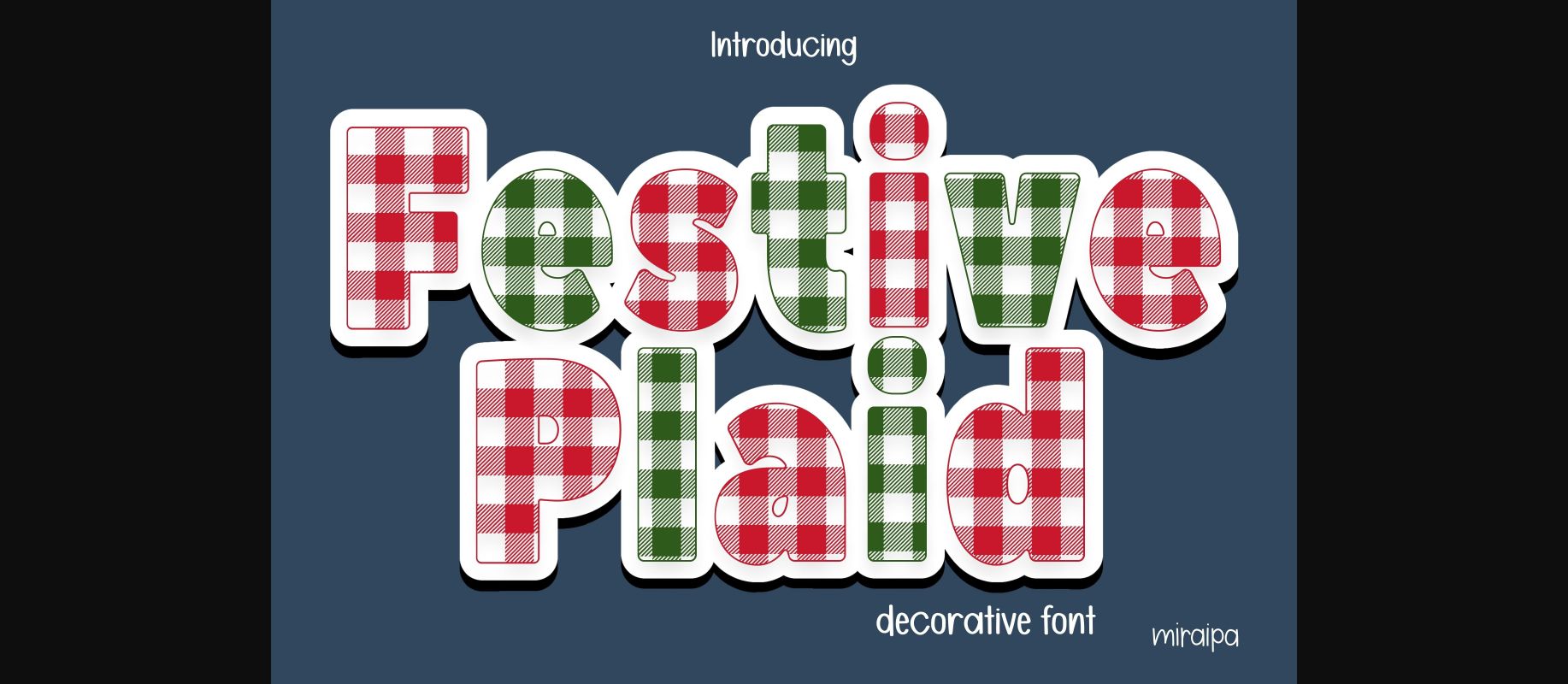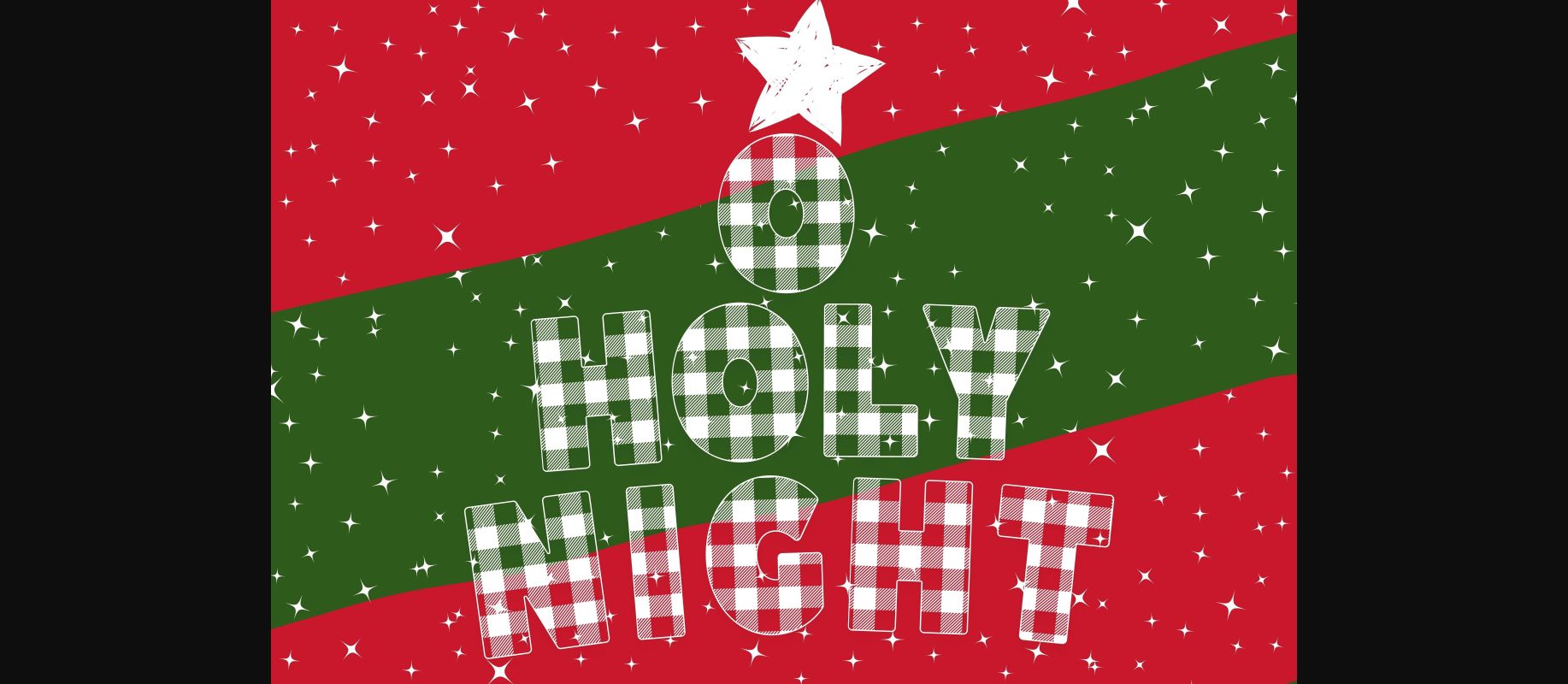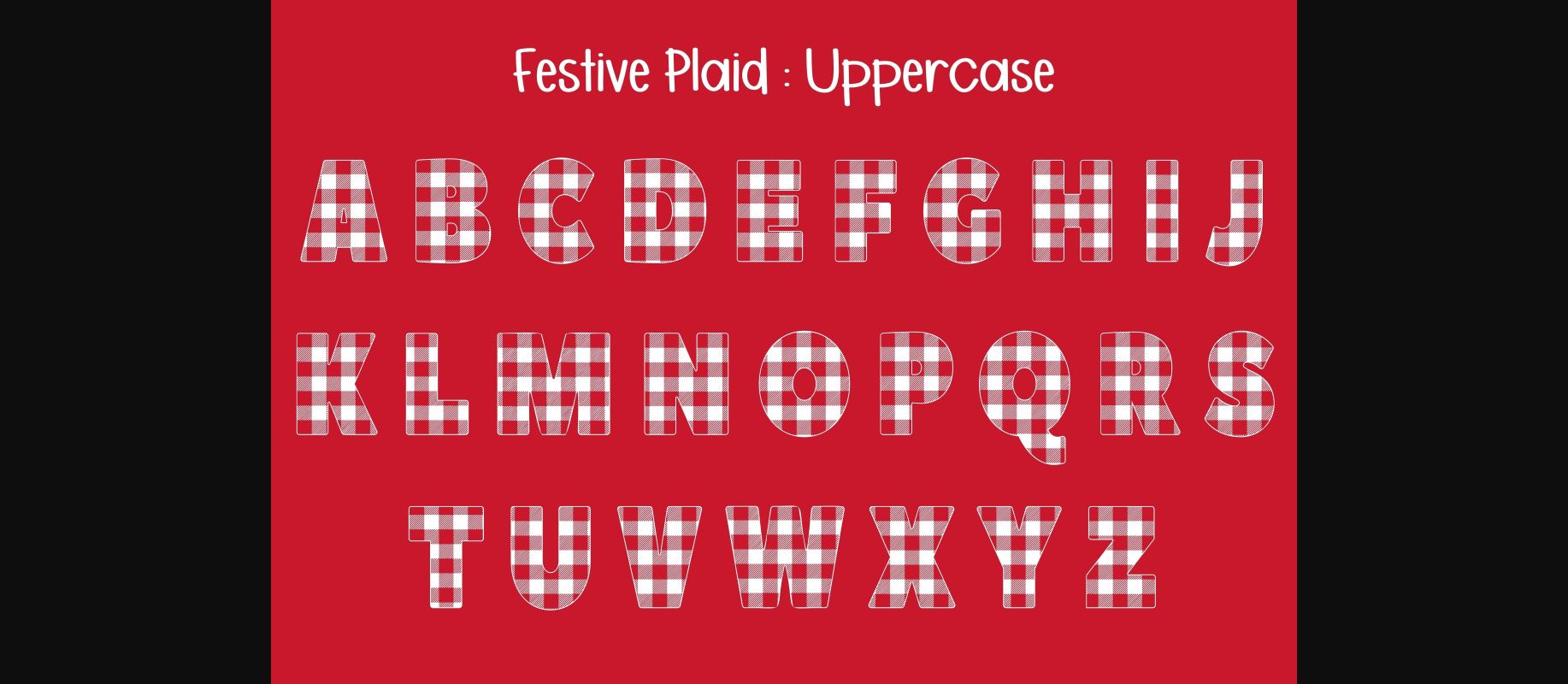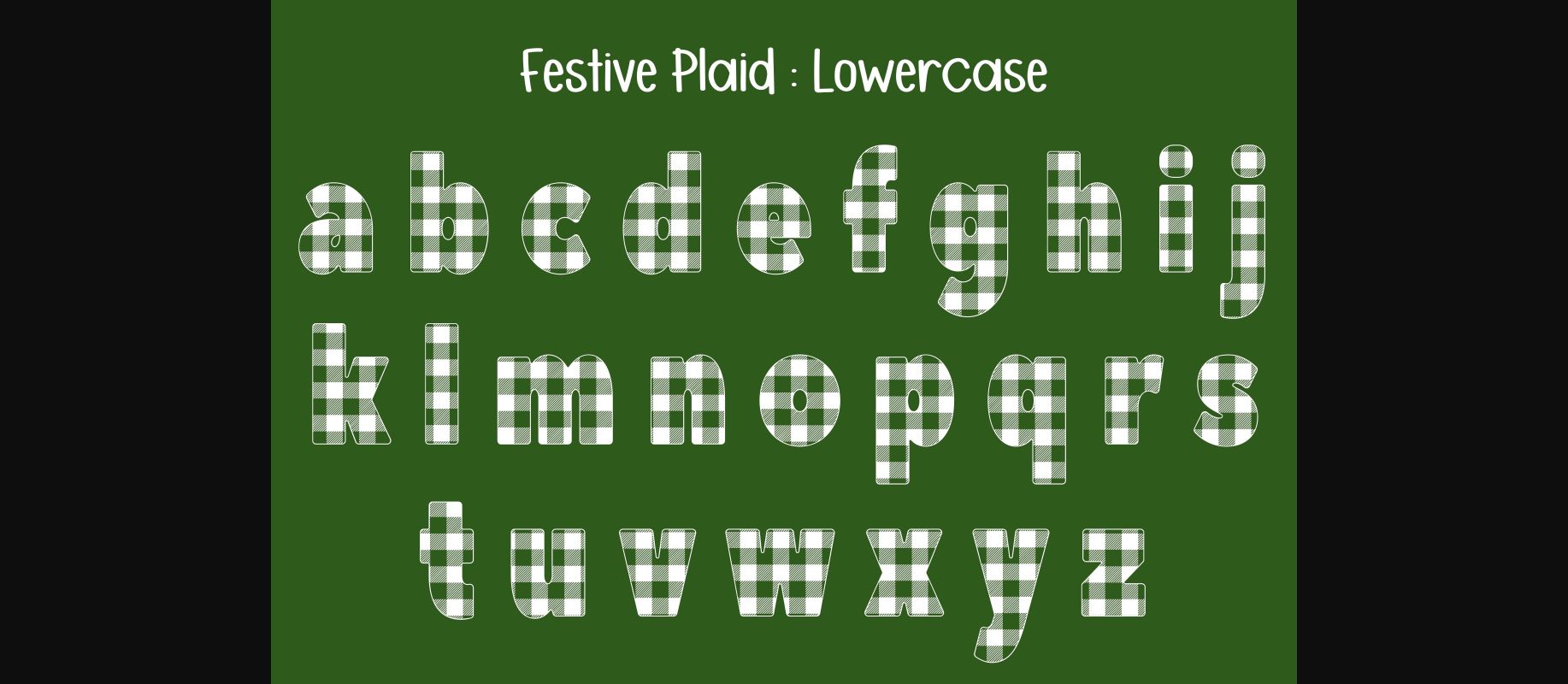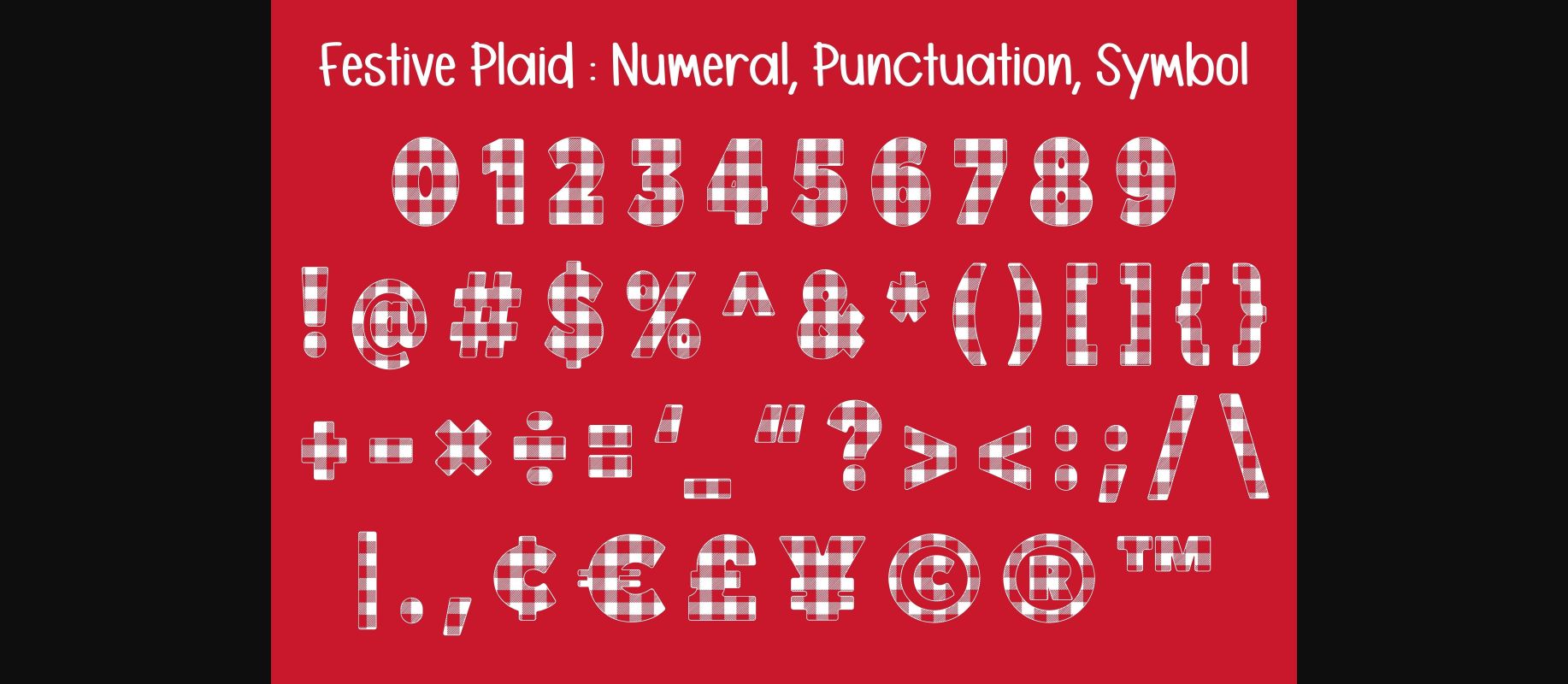
Festive Plaid Font
About Festive Plaid Font
Festive Plaid is a joyful and celebratory decorative font. Whatever the topic, this font will be a wonderful asset to your font library, as it has the potential to enhance any creation.